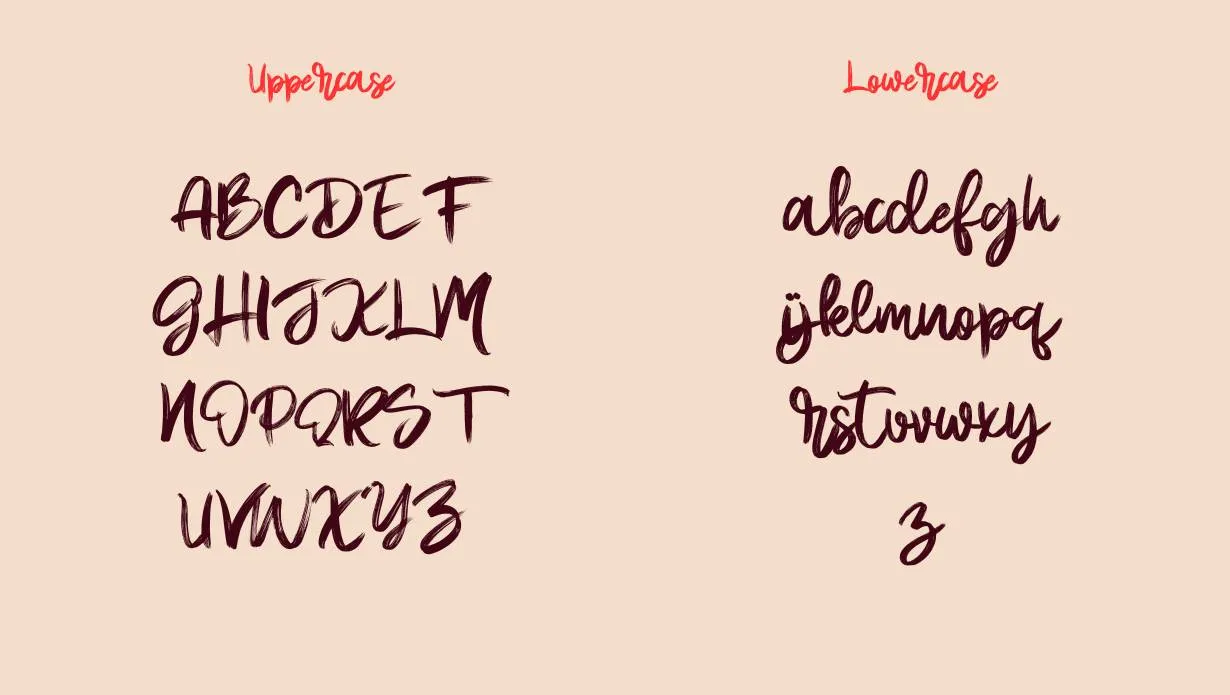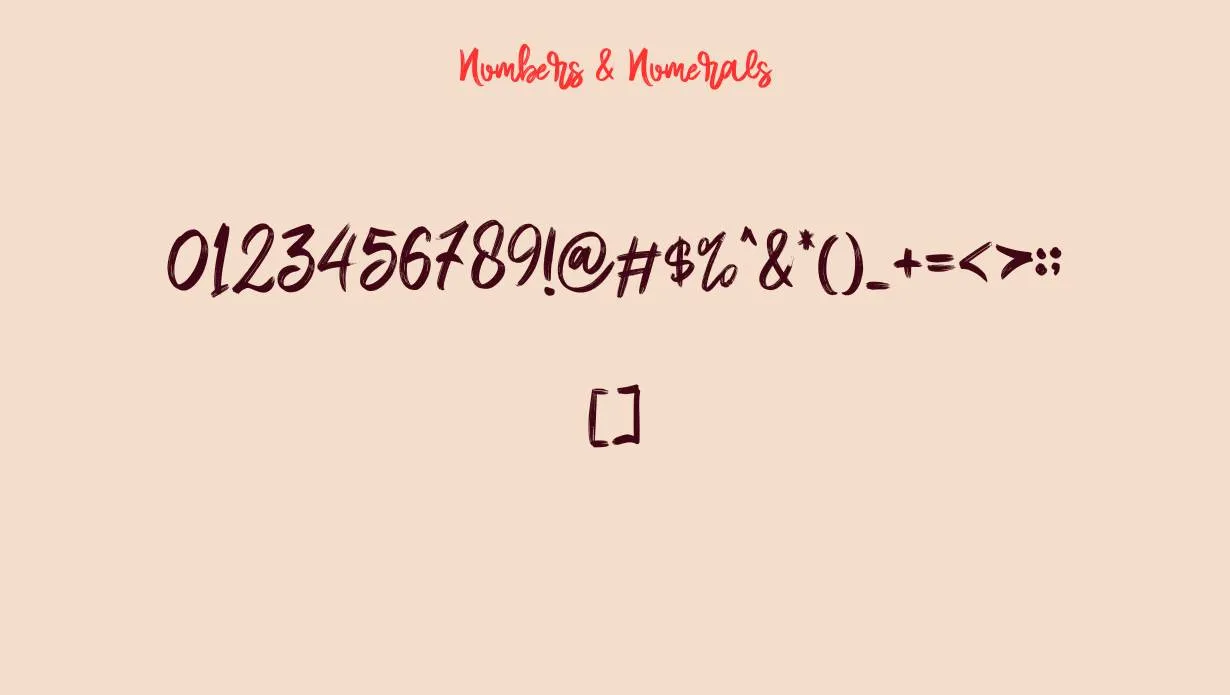
Bobby Anderson Font Free Download
Bobby Anderson Font is a well-known typeface with unique characters. This typeface belongs to the handwritten font family. You can utilize this magnificent combination with termina font to make your project look appealing.
There are more than 132 characters in this typeface which includes uppercase alphabets, numerals, lowercase alphabets, and punctuations.
View of Bobby Anderson Font
Bobby Anderson Font Info
| Name | Bobby Anderson Font |
| Designer | Letterara Studio |
| Style | handwritten |
- Bobby Anderson Regular